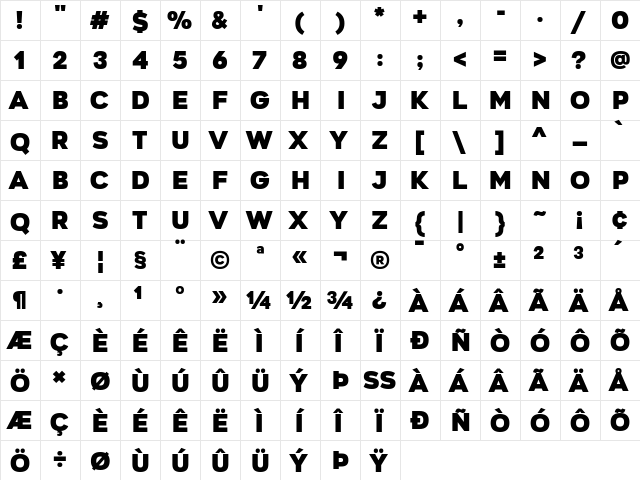
Gretaros Regular
Regular · Deepak Singh Dogra Deepak Singh Dogra ·
Design Context for Gretaros Typeface
Gretaros offers clean, dependable letterforms without strong stylistic allegiance, making it a practical choice for designers who need flexibility.